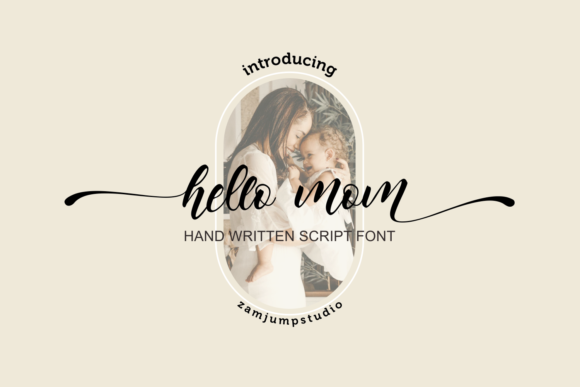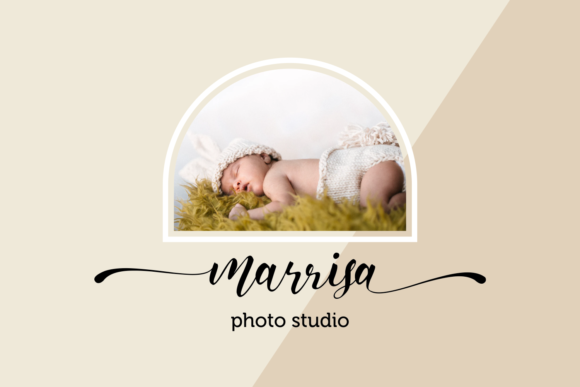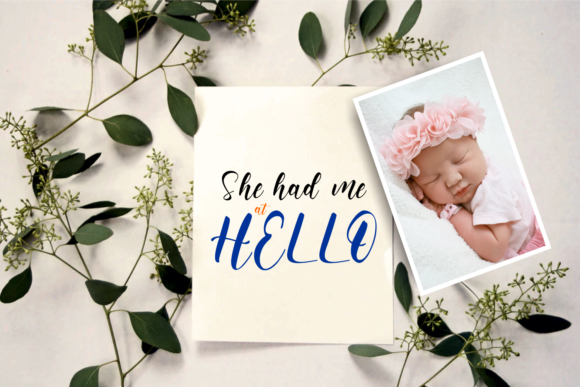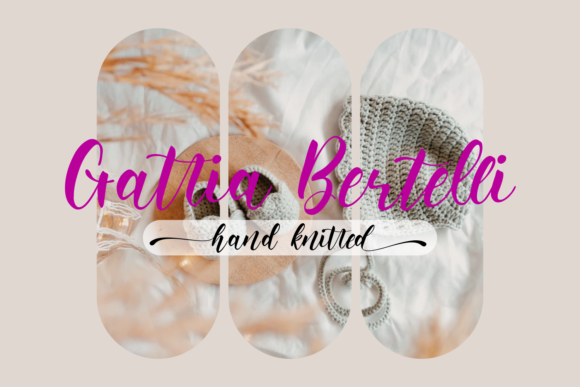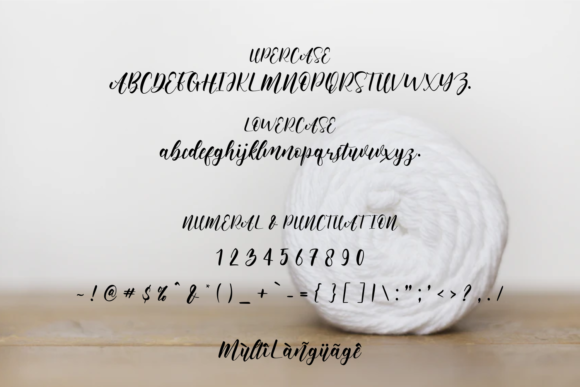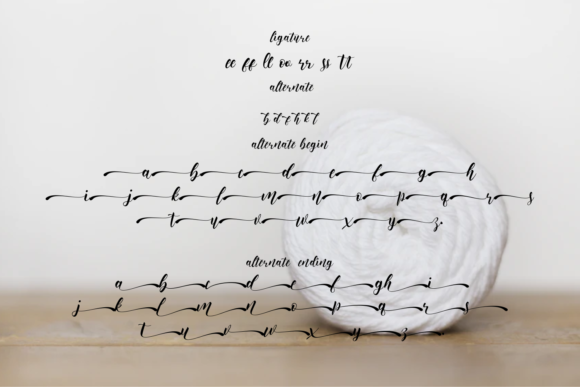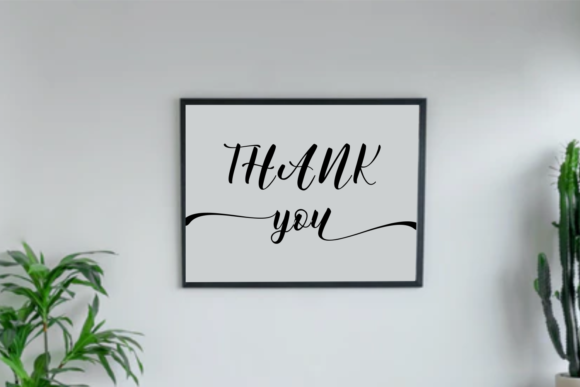
Hello Mom Font
About Hello Mom Font
Hello Mom is a lovely and timeless handwritten font. It is the best choice for creating eye catching logos, branding and quotes. Every letter has a unique and beautiful touch, which will make your design come alive!